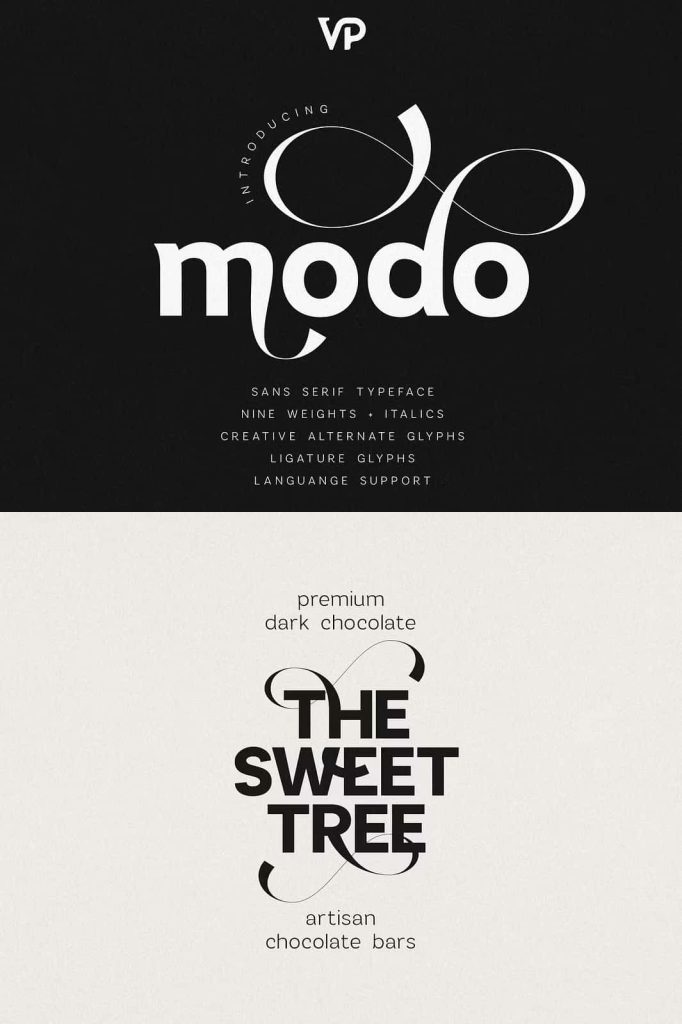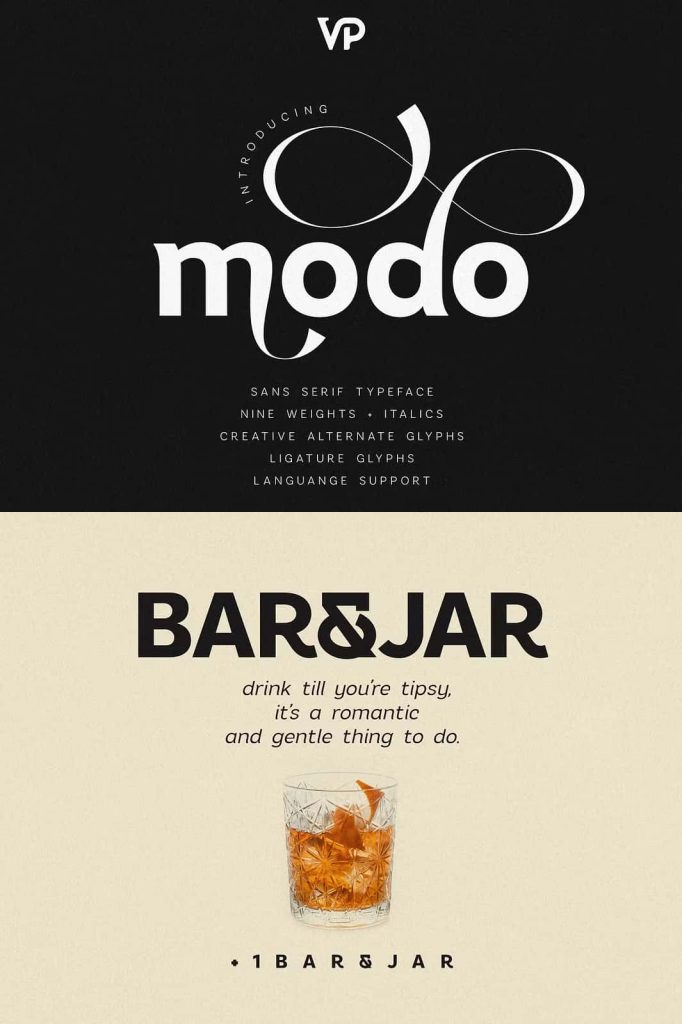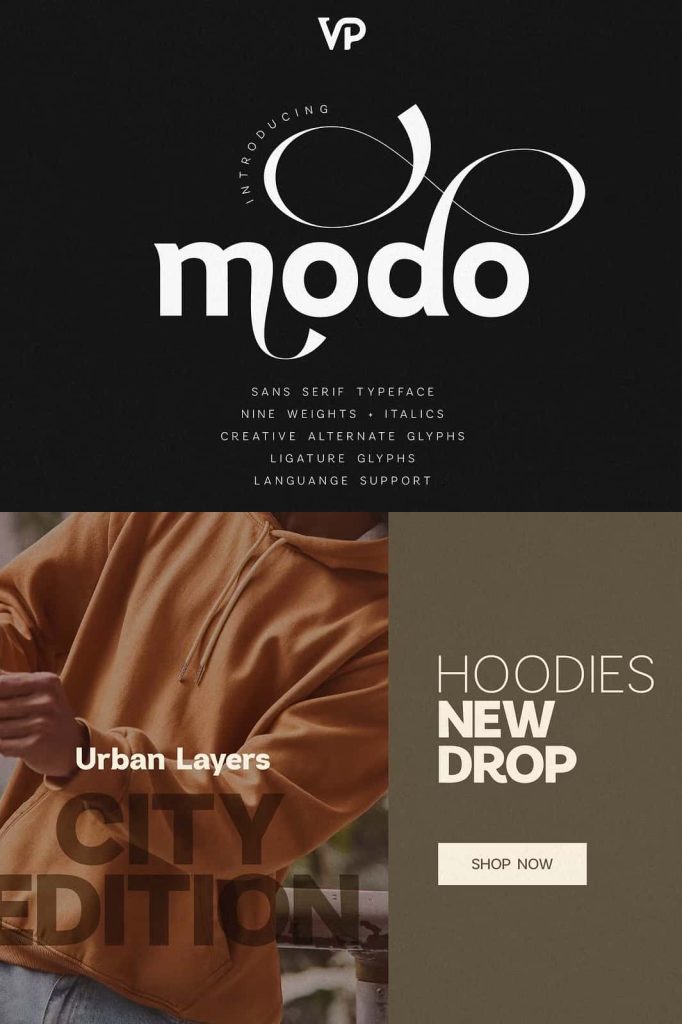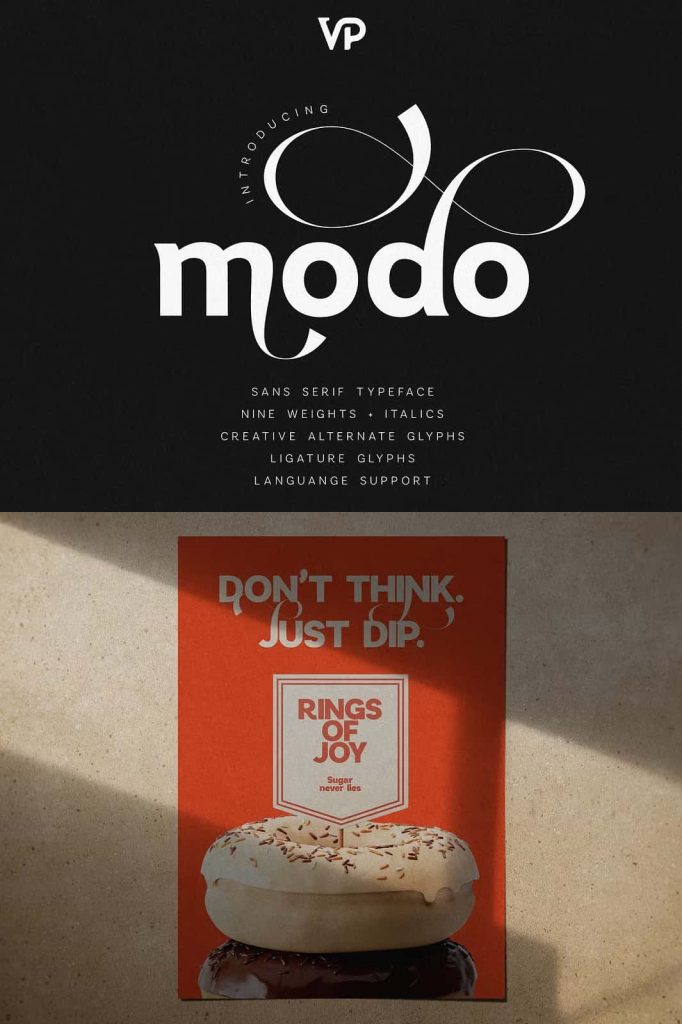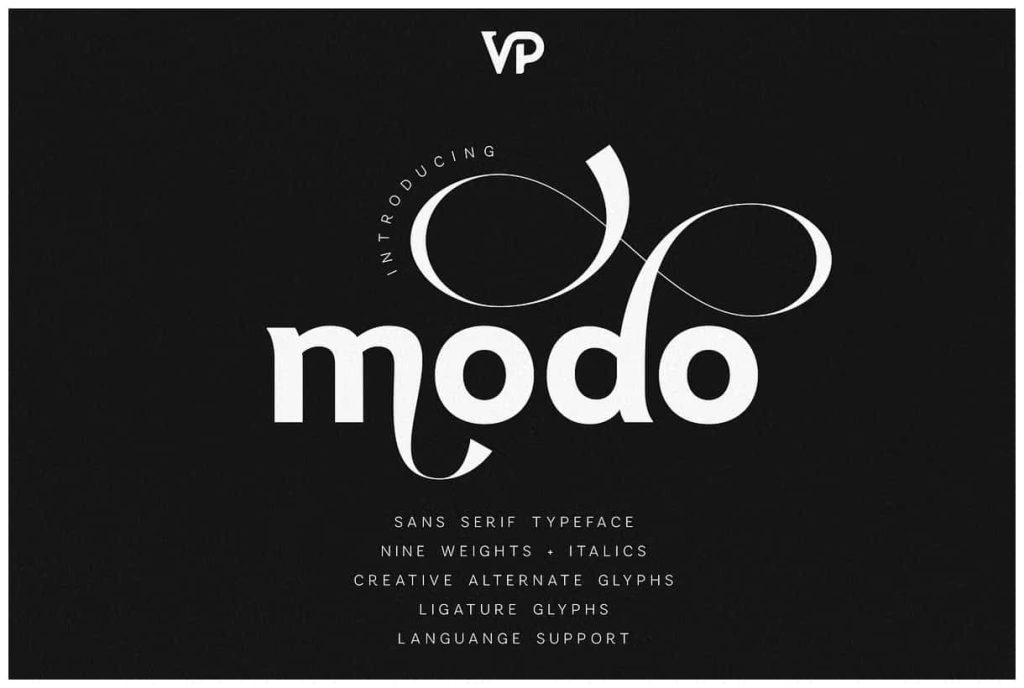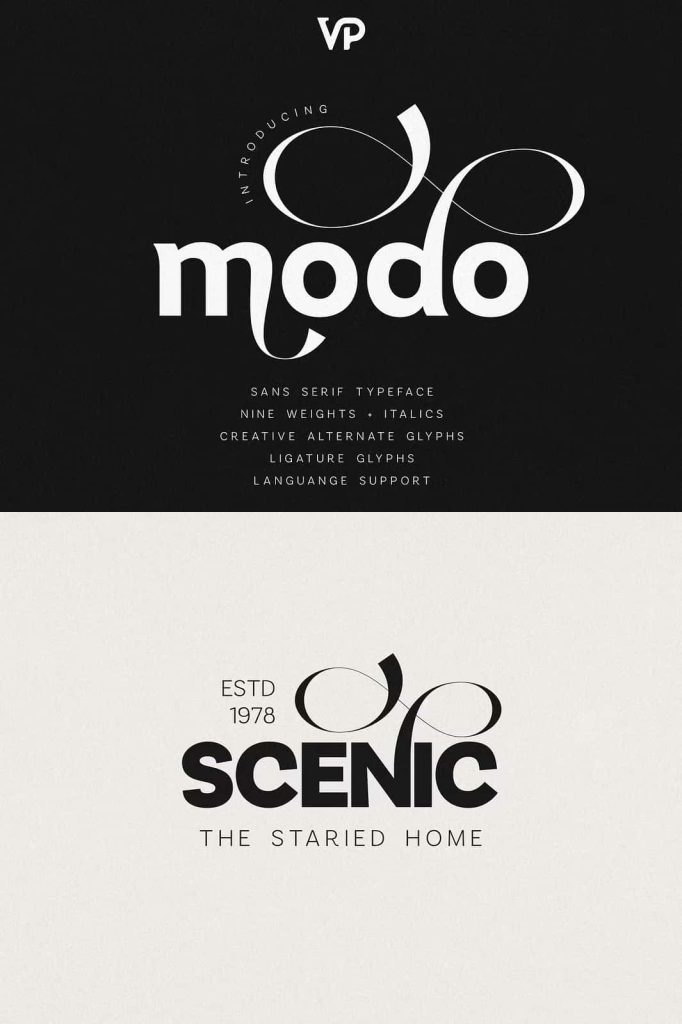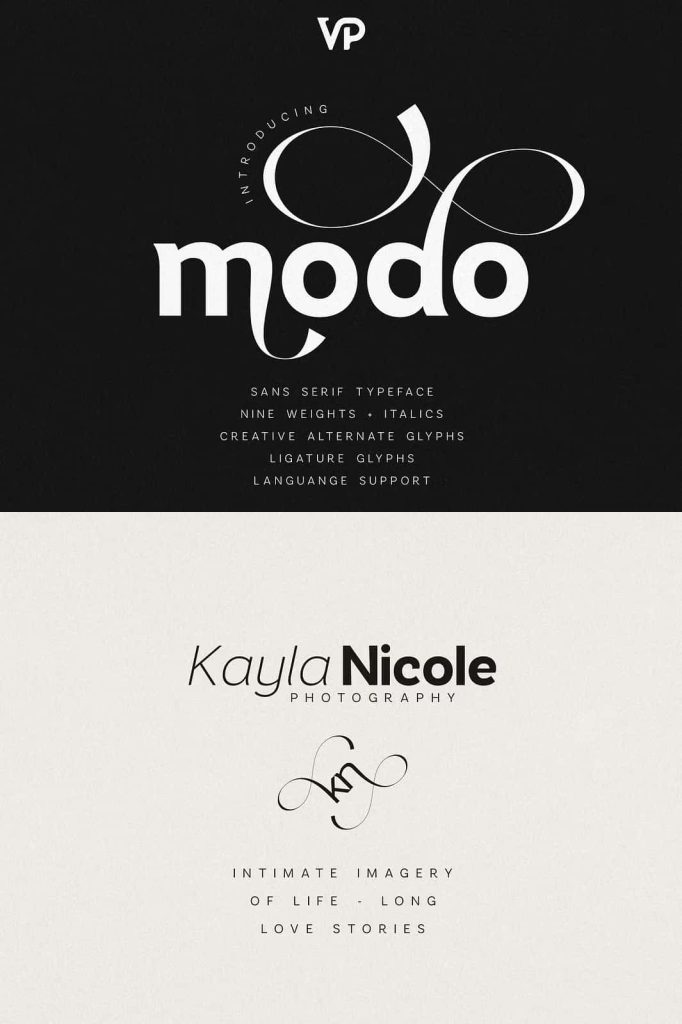
Modo is a contemporary sans serif typeface designed to balance clean minimalism with expressive creative flair. Featuring nine weights with matching italics, Modo adapts seamlessly from elegant thin lines to powerful bold statements.